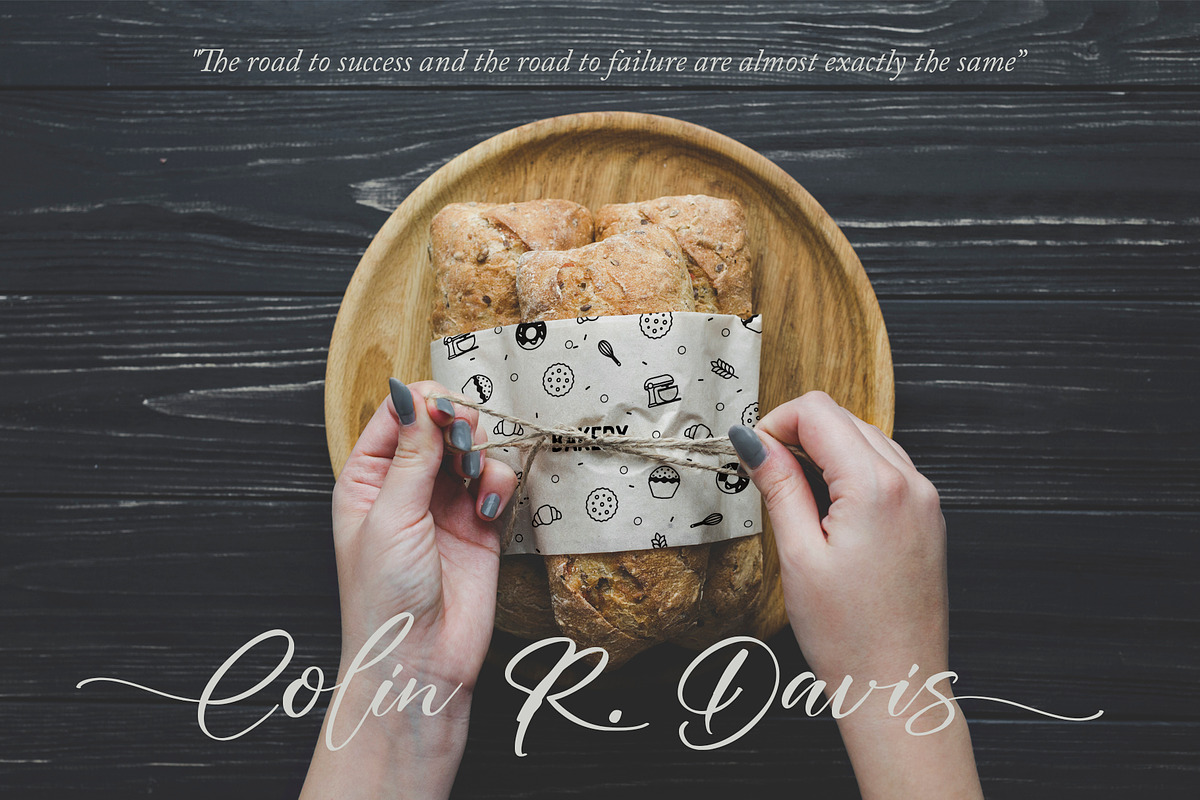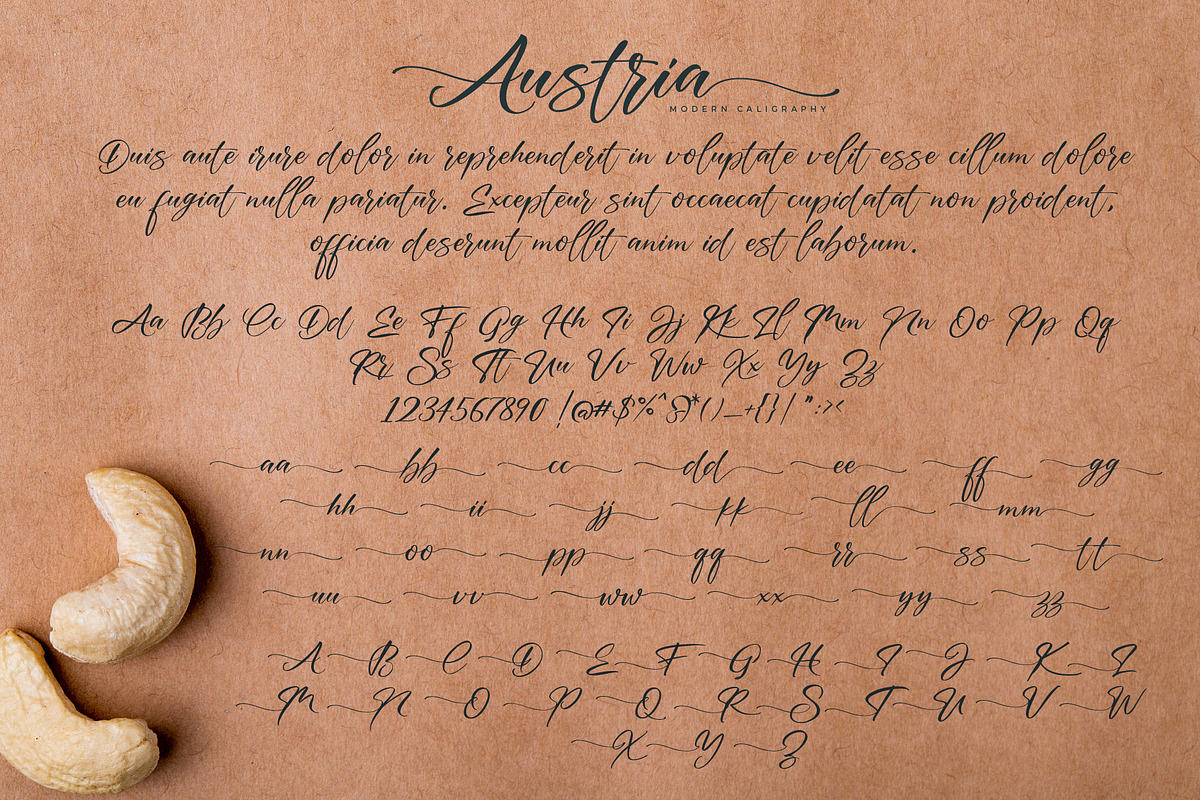
Austria Script is a modern calligraphy font that is made with a natural touch that is handmade. Perfect for branding, signature logos, business cards, wedding invitations and labels for other design needs.
Austria Script has full features ranging from uppercase, lowercase, numerical, punctuation and stylistic alternate. All uppercase and lowercase have a beginning swash and ending swash so the Austrian script will produce a handwritten form that is very handlettering style.